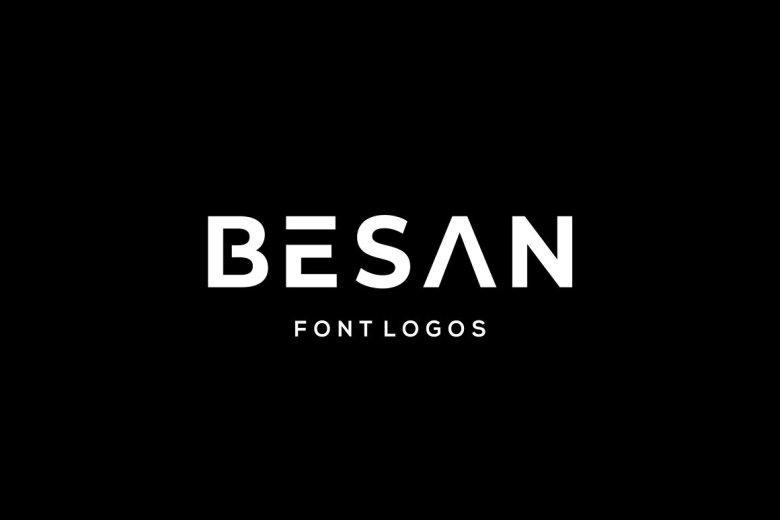
Besan Font
Introducing Besan Sans Serif Font  a brand new Sans-Serif It’s an all-caps font that is bold and features minimalism while being both unique and elegant. It is perfect for logos, wordmarks, titles, taglines. People who embrace minimalism or prefer a minimalist design will love this font. Perfect not only for projects but also for advertising.
Besan Sans Serif Font